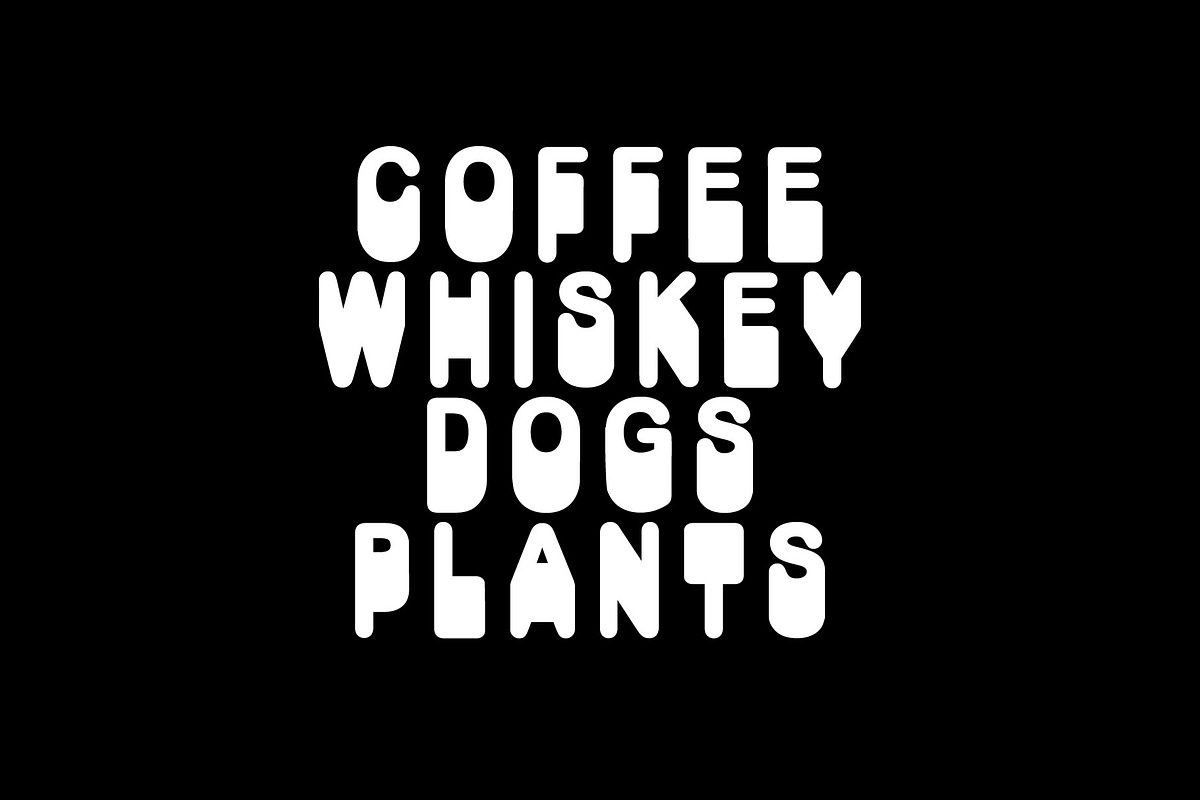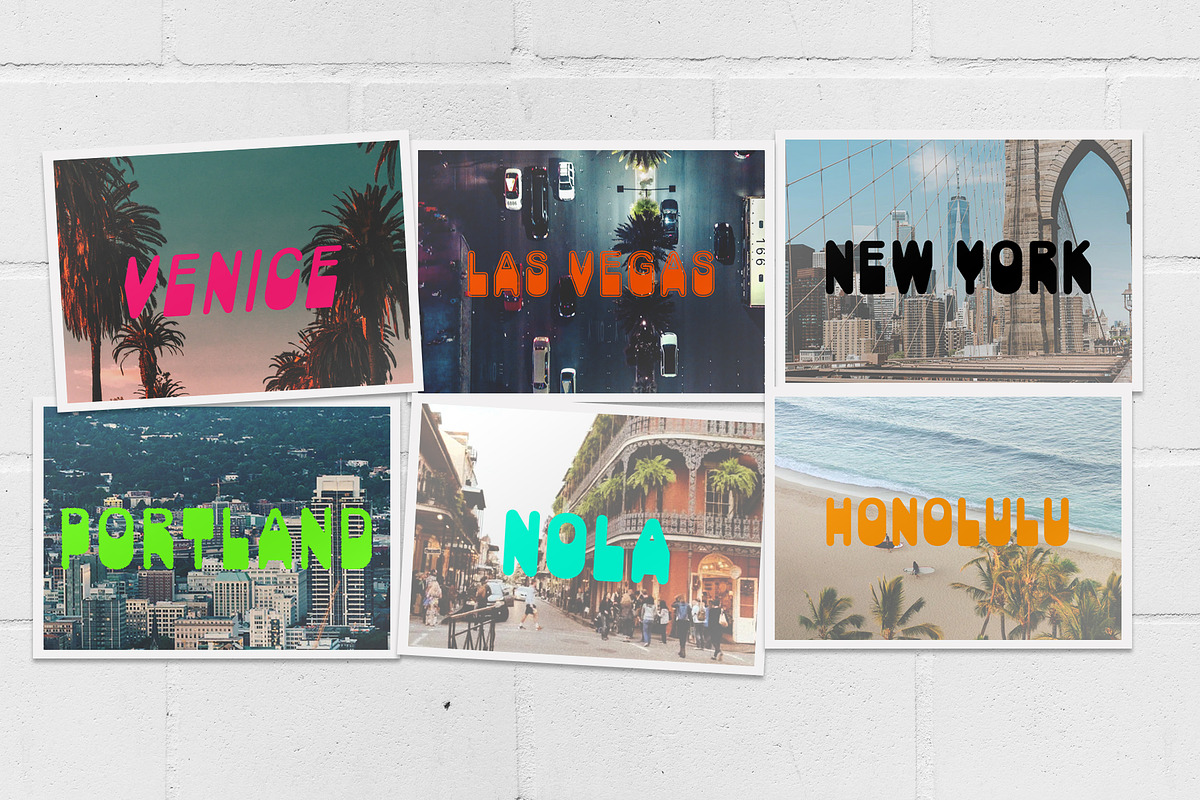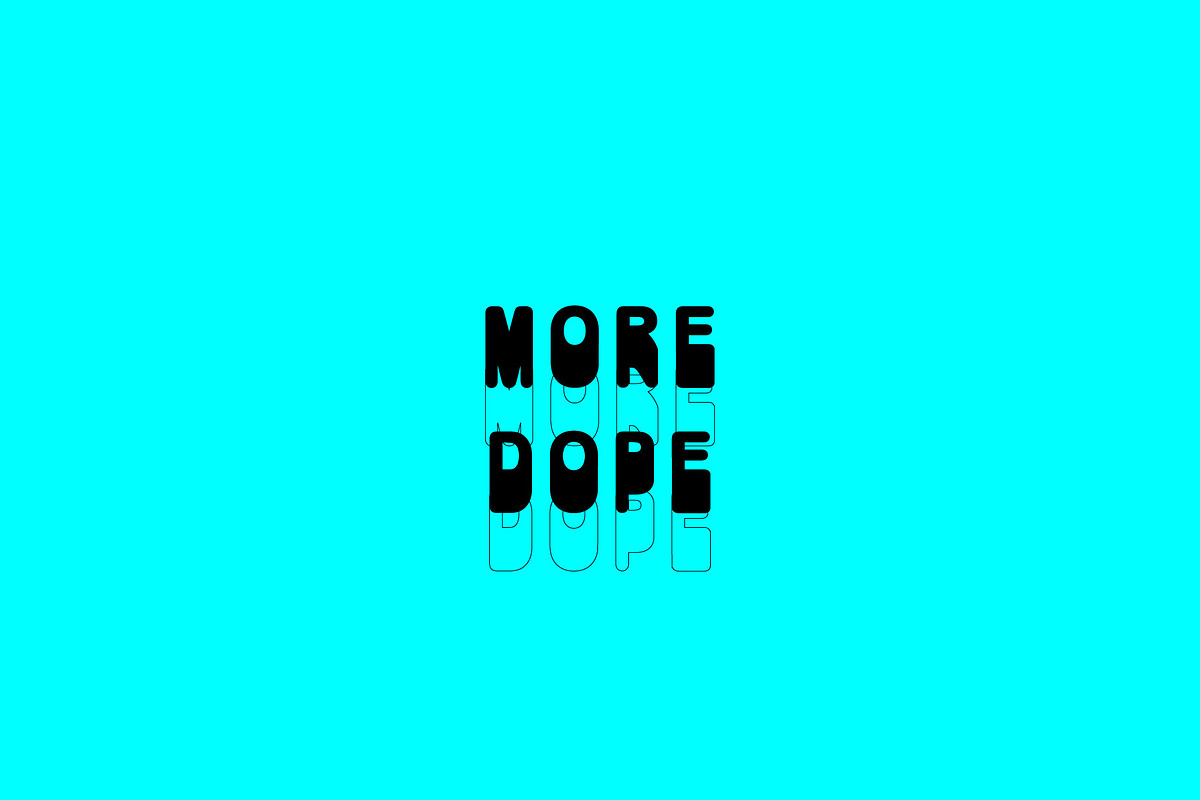
NOPE Font Family
NOPE is a family of seven unique sans-serif styles. Used separately or together, each font will add modernity + individuality to your designs.
Each style includes uppercase, numbers, and punctuation. NOPE is THE family for awesome poster design, logos, print, branding, and more.
- Nope Thin
- Nope Regular
- Nope Italic
- Nope Bold
- Nope Outline
- Nope Rough
- Nope Ultra